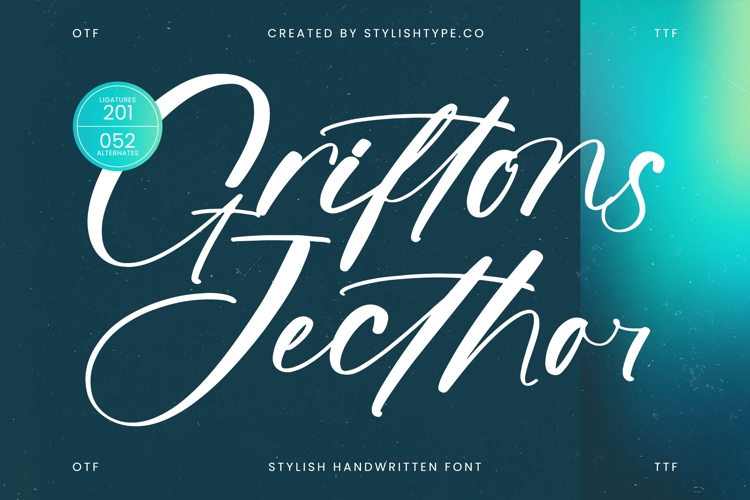
Griftons Jecthor - Stylish Handwritten Font
Elevate your designs with unparalleled elegance through the exquisite Font Griftons Jecthor - Stylish Handwritten Font Script. This captivating script font exudes a natural, fluid grace, embodying genuine handwriting with a professional, refined touch. Its flowing strokes and organic rhythm instantly bestow a sense of bespoke craftsmanship and sophisticated allure, transforming text into a compelling visual statement.
Unlock boundless creative potential with Font Griftons Jecthor - Stylish Handwritten Font Script, packed with extensive typographic features. Boasting an impressive 201 ligatures and 52 alternates, this font offers an extraordinary degree of customization. These rich stylistic sets enable a truly unique and handcrafted aesthetic, ensuring your text never looks repetitive. Achieve dynamic and expressive layouts, making every design exceptionally memorable.